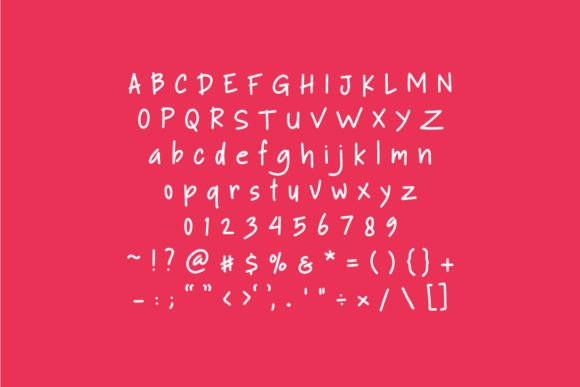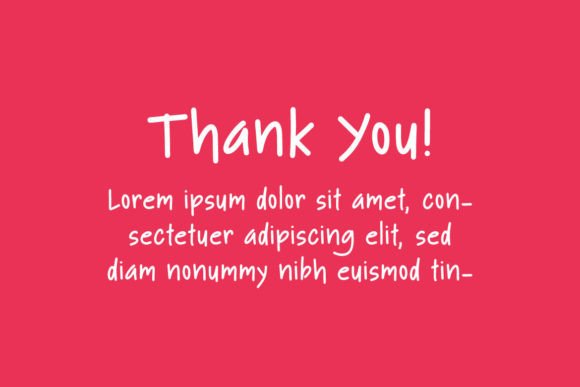
Unleashing Your Creativity: The Power of Going Rush Font
Have you ever been stuck on a project, staring blankly at your screen, waiting for that spark of inspiration to strike? We’ve all been there. It’s the moment when the clock is ticking, and your deadline is looming, but your creative well has run dry. That’s when you need a little push to get your imagination flowing.
This is where Going Rush Font comes in – a minimalist handwritten font that’s designed to breathe new life into your most creative ideas. With its beautiful and well-balanced characters, it’s the perfect addition to any design project. Whether you’re a seasoned pro or just starting out, Going Rush Font is a valuable tool that will help you take your designs to the next level.
- Unique Characteristics: Going Rush Font features a unique, modern design with a mix of geometric and organic elements, making it suitable for a wide range of design applications, from logos to body text.
Designer Review: Going Rush Font
As a designer, I was excited to dive into the “Going Rush Font” and see what it has to offer. Here’s my honest review:
- Unique Style: The font has a distinct and modern look that can help designers stand out in a crowded market.
- High-Quality Characters: The font includes a wide range of characters, including symbols and punctuation marks, making it a great choice for logos, titles, and body text.
- Flexibility: The font is highly customizable, allowing designers to adjust the weight, style, and spacing to fit their project’s needs.
- Limited Legibility: At small font sizes, the font can become difficult to read, which may be a concern for designers working on projects that require a lot of text.
- Over-Reliance on Bold: The font’s bold weight is very striking, but it can make the regular weight seem somewhat weak in comparison.
- No Italic or Oblique: The font is missing italic and oblique styles, which may limit its use in certain design projects.
The “Going Rush Font” is a solid choice for designers looking for a modern, unique font to add some excitement to their projects. While it has some limitations, its high-quality characters and flexibility make it a great option for logos, titles, and other design elements. With some careful consideration of its limitations, designers can use this font to create stunning and effective designs.
Tips for Getting the Most Out of Going Rush Font
Use bold text to draw attention to important information. Experiment with different font sizes to create visual hierarchy. Use the font in combination with other design elements to create a cohesive look.
Going Rush Font is ideal for use in headings, titles, and other attention-grabbing text. It’s also suitable for use in logos, branding materials, and other design elements where a bold, modern look is desired.